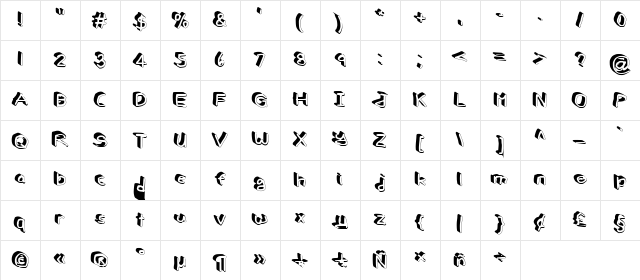
Gee_WP_Handwriting_2016_3D Regular
Design Context for Gee_WP_Handwriting_2016_3D Typeface
Gee_WP_Handwriting_2016_3D flows with the natural rhythm of handwritten lettering, making it ideal for designs that call for warmth and personal expression.
Font Pairing: Combine Gee_WP_Handwriting_2016_3D with a simple geometric sans for maximum contrast — the tension between flowing curves and clean structure is a classic typographic pairing.
Pro Tip: Use Gee_WP_Handwriting_2016_3D for short runs of text — names, titles, or taglines. Extended body copy in script faces tires the eye quickly.